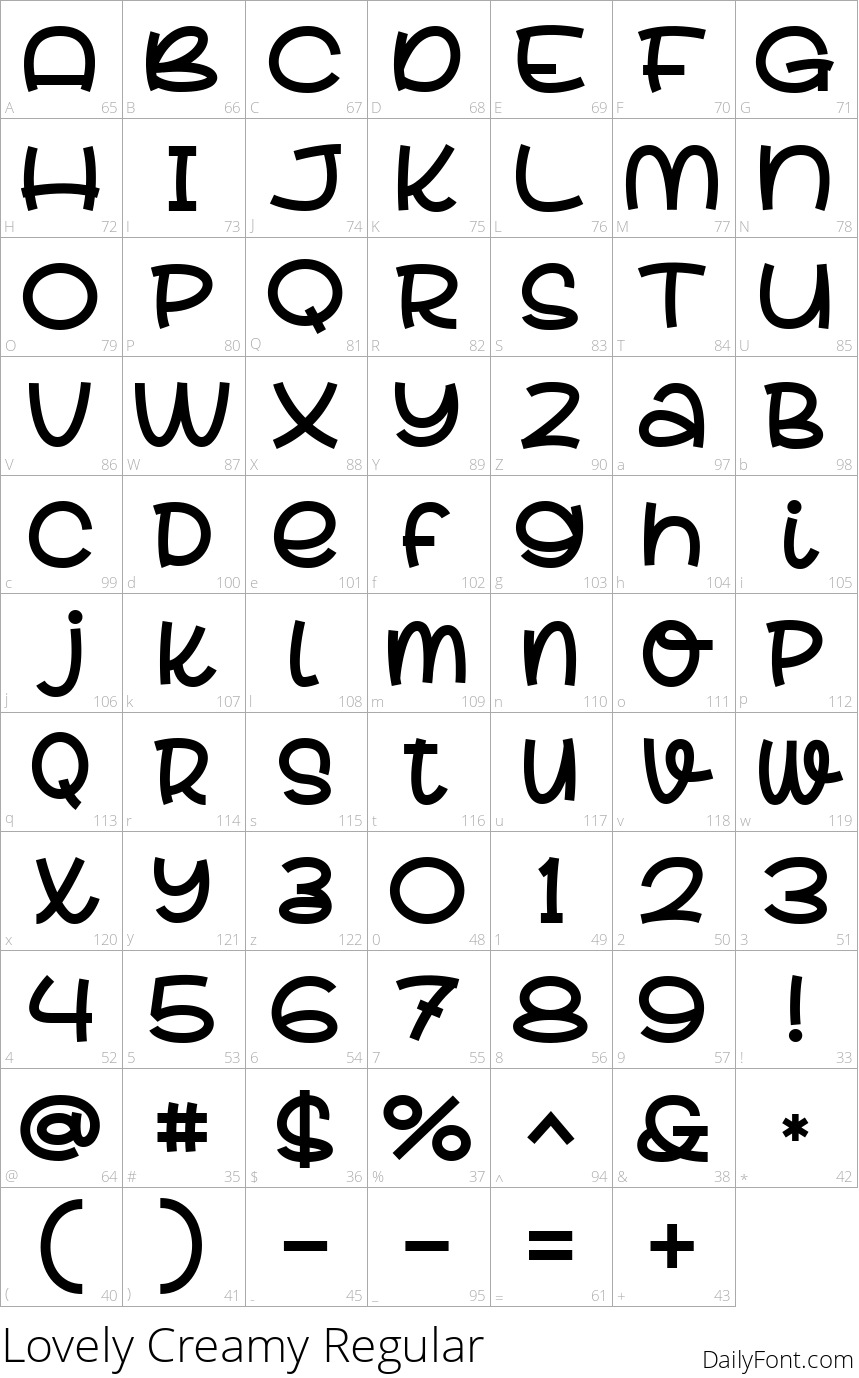
Lovely Creamy
Lovely Creamy is a whimsical display font that seamlessly marries elegance with a playful charm. Designed with meticulous attention, it embodies timeless elegance while maintaining a friendly, approachable demeanor. The font features exquisite curves and flourishes, making it ideal for designs that seek to evoke warmth and creativity.
Whether you are working on wedding invitations, children's book covers, or any project requiring a distinctive touch, Lovely Creamy stands out with its unique character. It enables artists and designers to infuse a sense of joy and sophistication into their work, resulting in original, eye-catching designs that resonate with audiences. With its balance of classic style and modern appeal, Lovely Creamy is your go-to font for creating memorable visual identities and strong brand messaging. Elevate your design projects today with this beautiful, versatile typeface that invites creativity and expression.